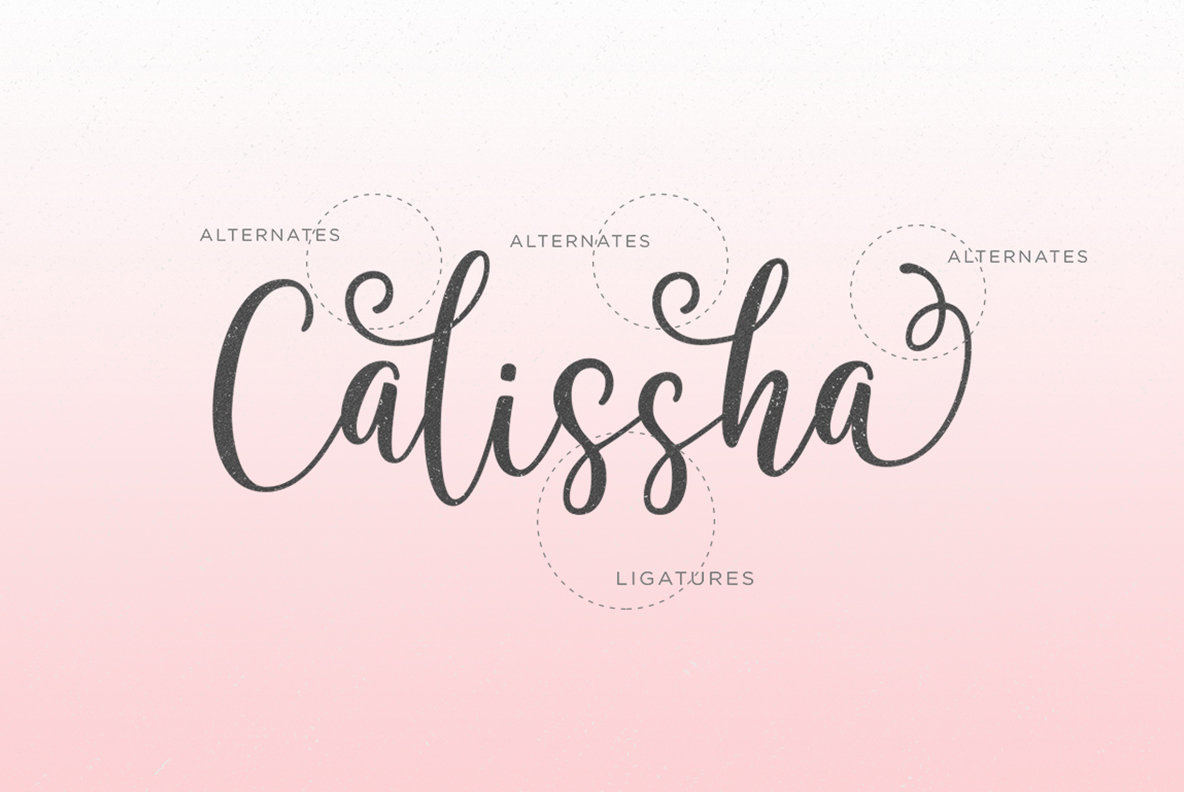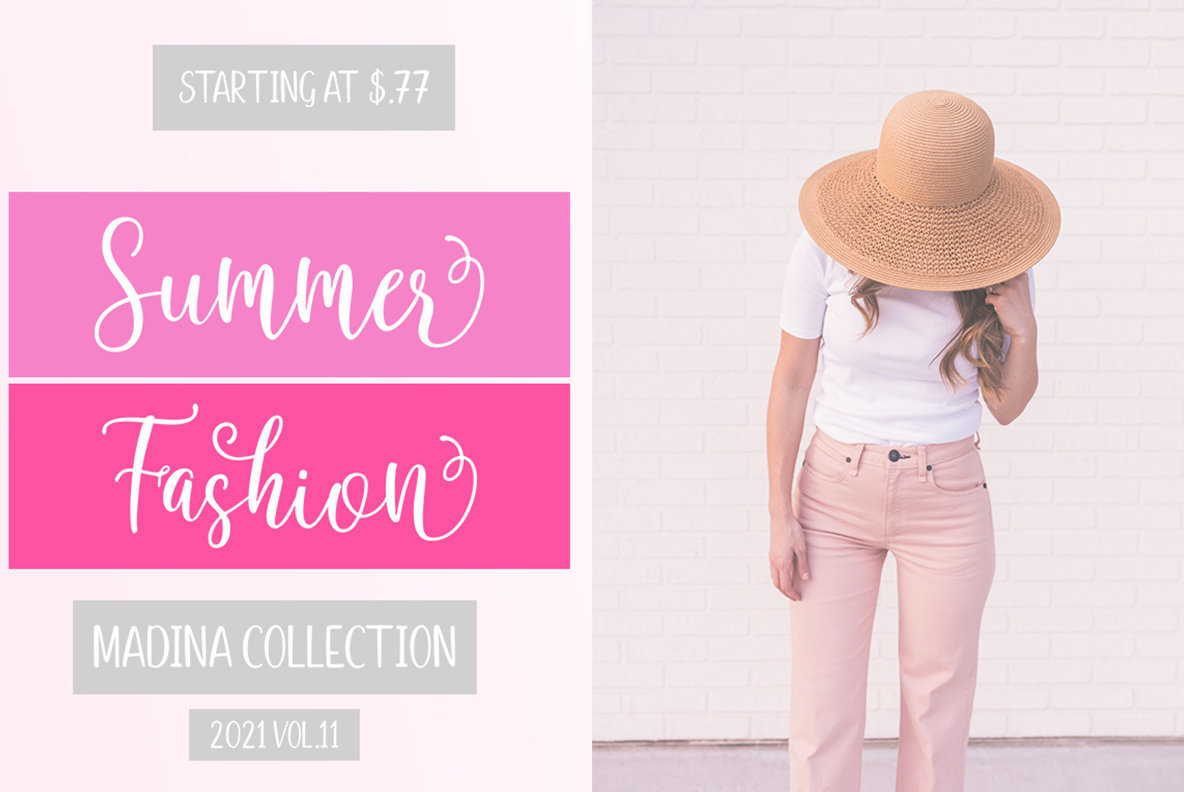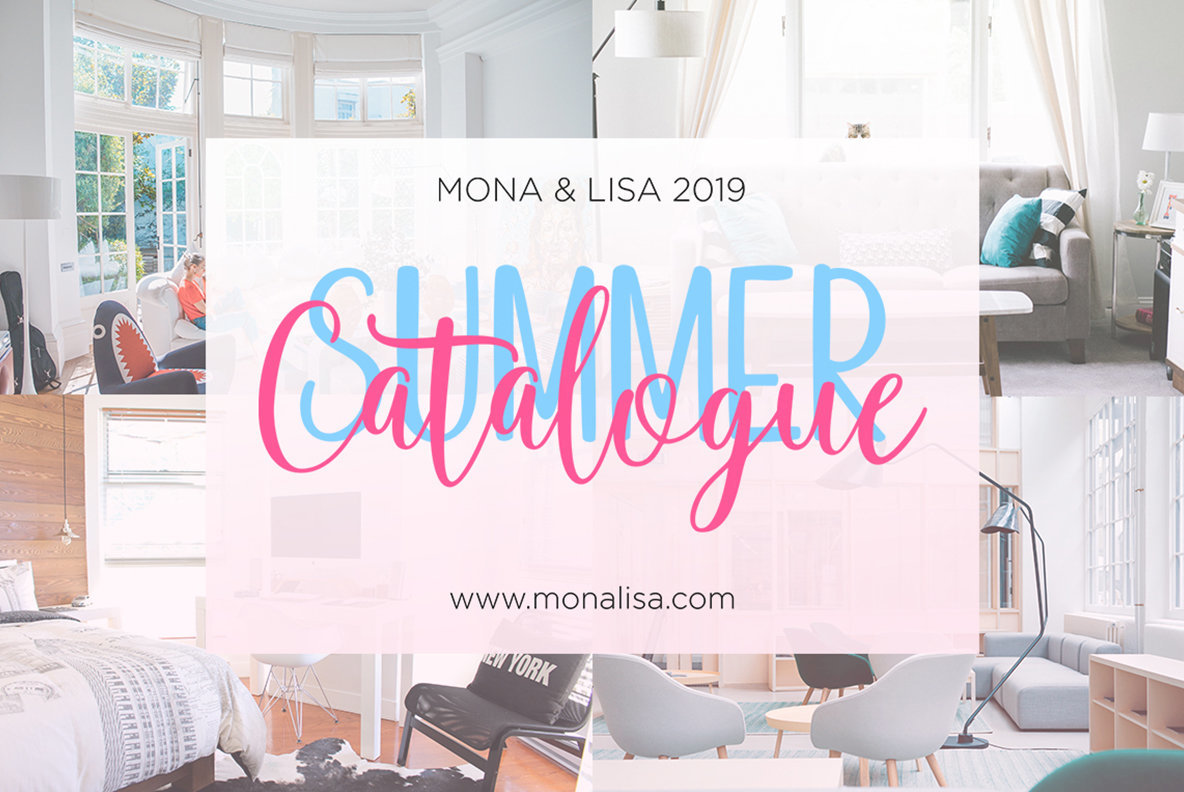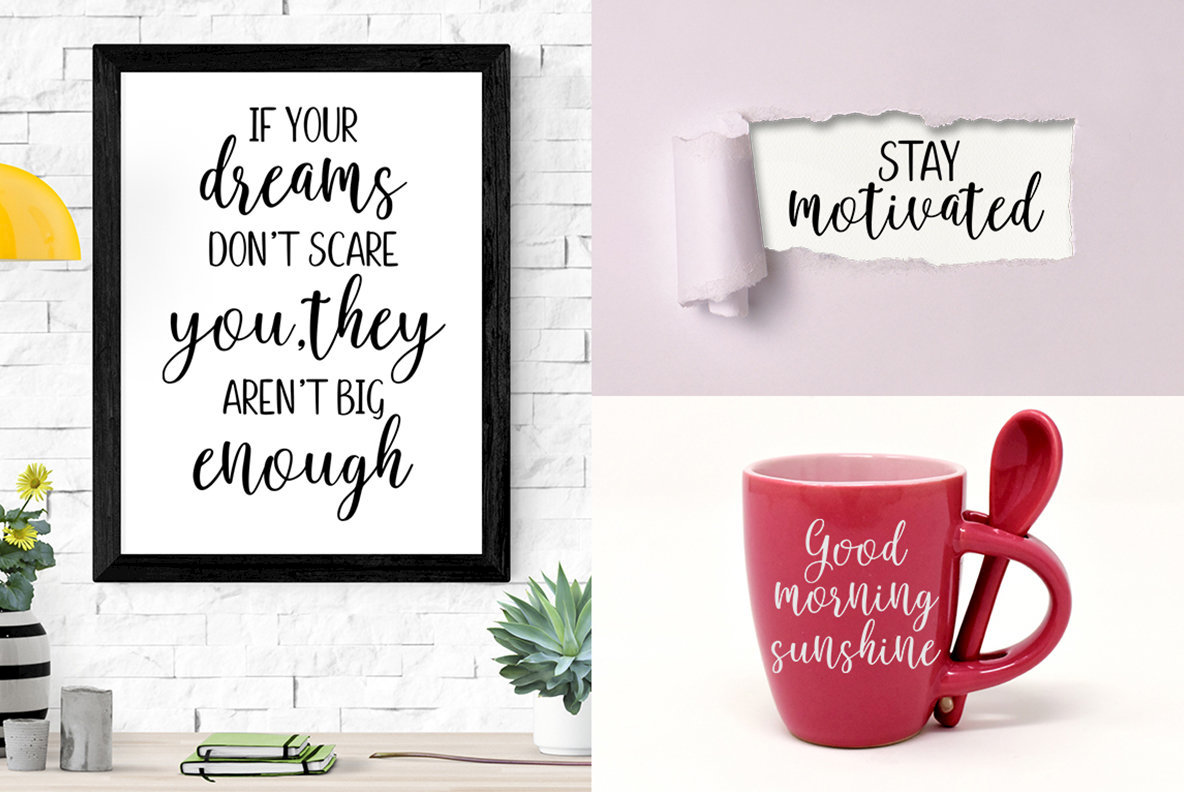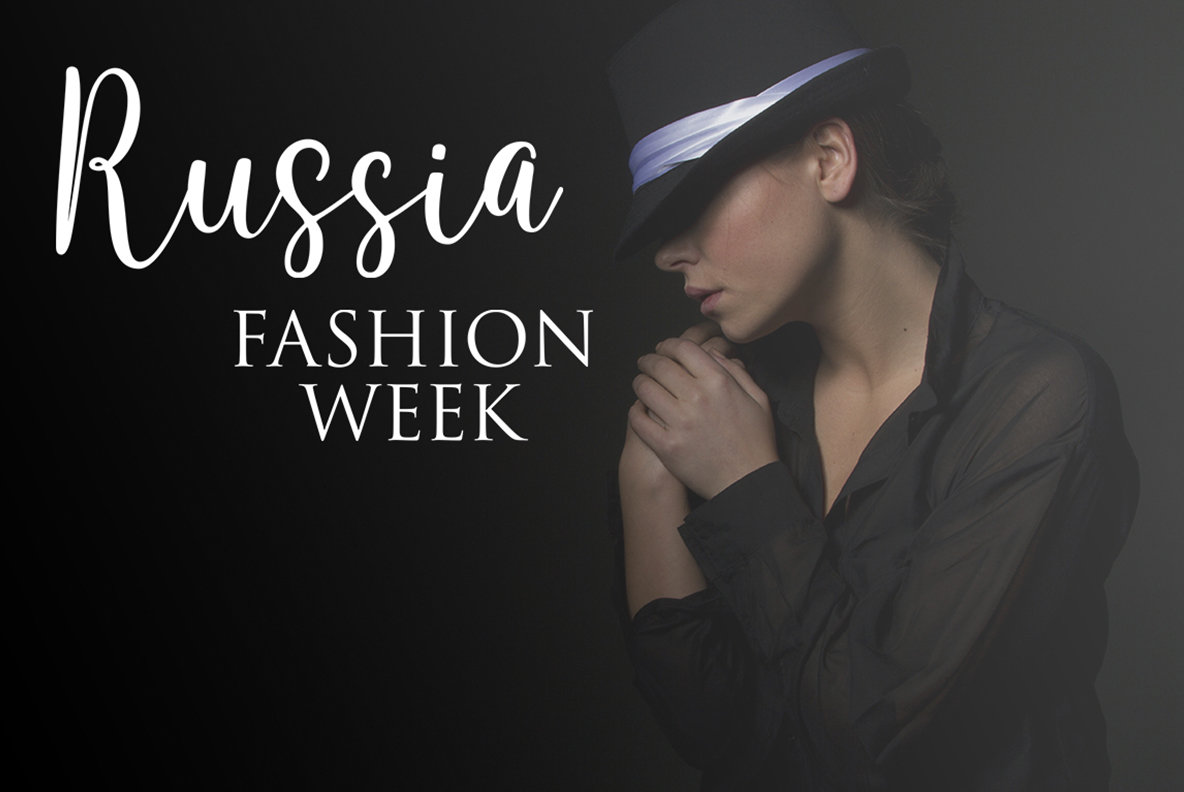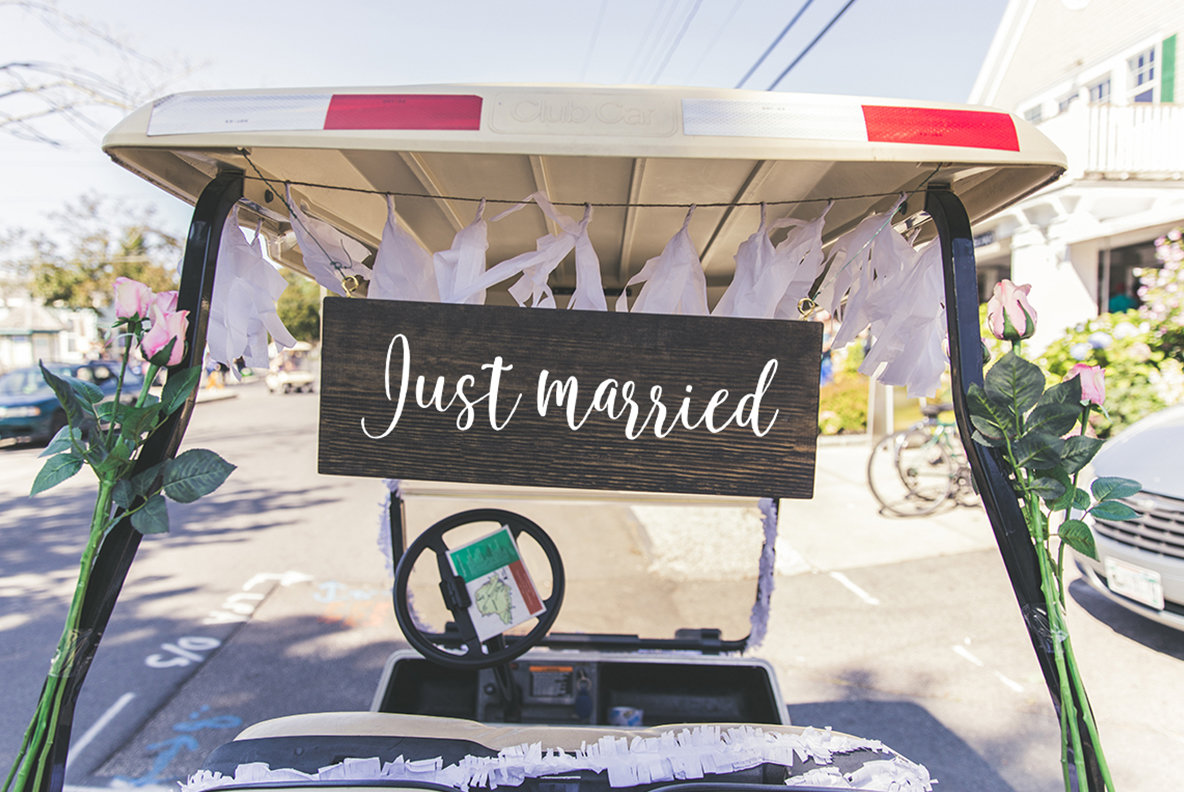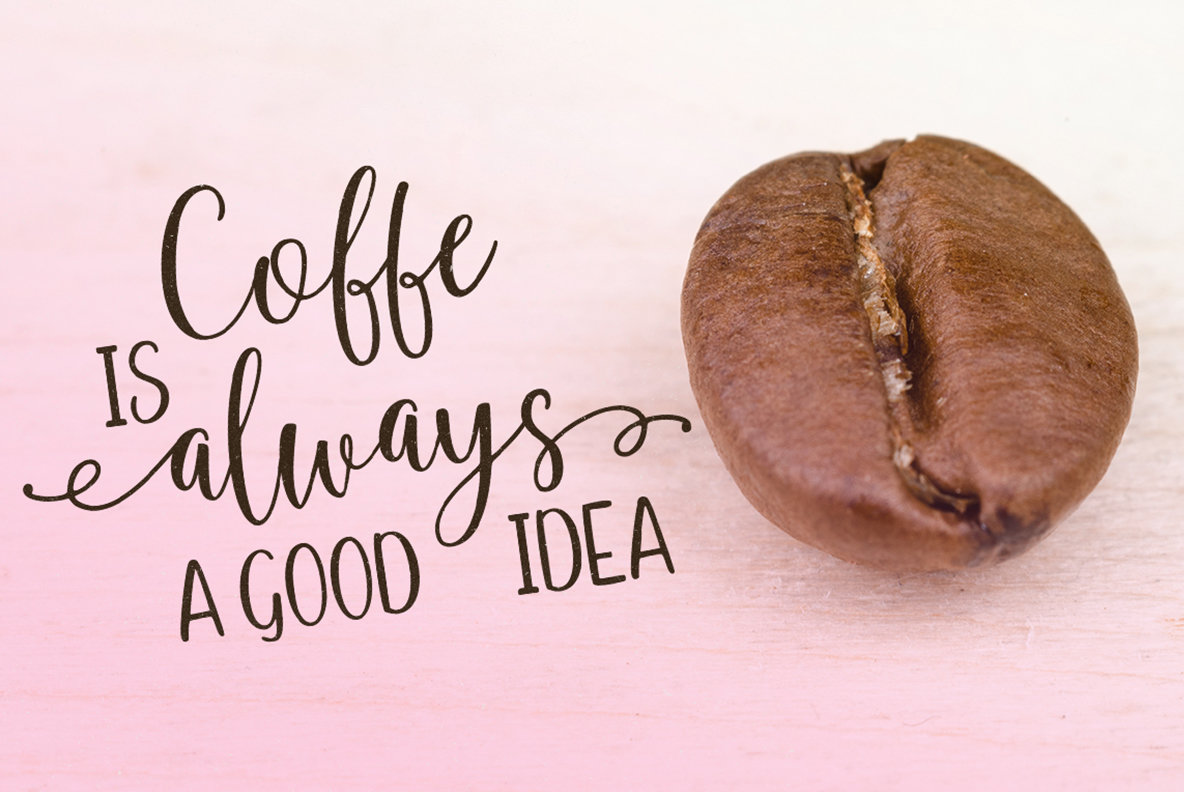
Calissha Font
Calissha Font Duo, crafted by Megatype, merges the organic charm of brush and ink with bold, irregular baselines for a captivating aesthetic. This handmade font offers a full suite of lowercase and uppercase characters, alternates, ligatures, punctuation, numbers, and multilingual support. The Calissha sans complements its script counterpart, working in tandem to produce remarkable typographic designs. Ideal for watercolor designs, bold hand lettering, and beyond, Calissha Font Duo brings elegance to blog headers, branding, t-shirts, weddings, social media, product designs, and more. For designers using Adobe Illustrator, InDesign, or compatible software, the OpenType features provide extensive creative possibilities.Calissha Font Duo: Bold Brush & Harmonious Sans